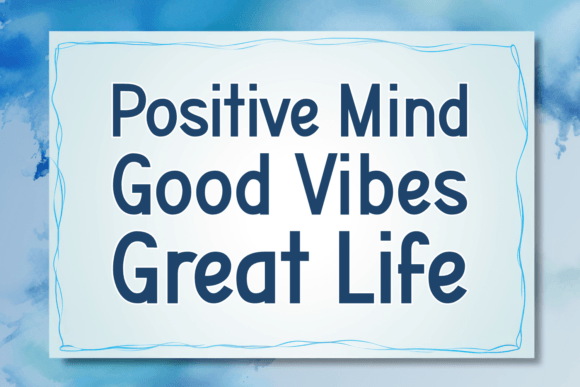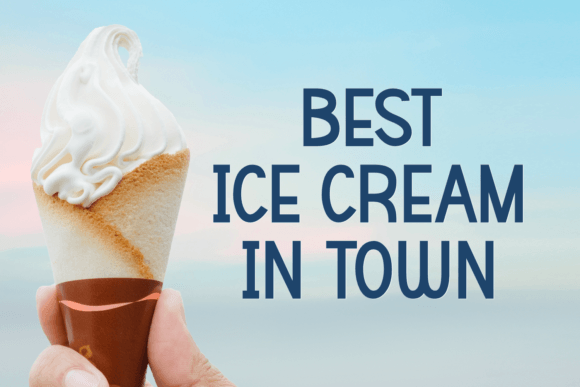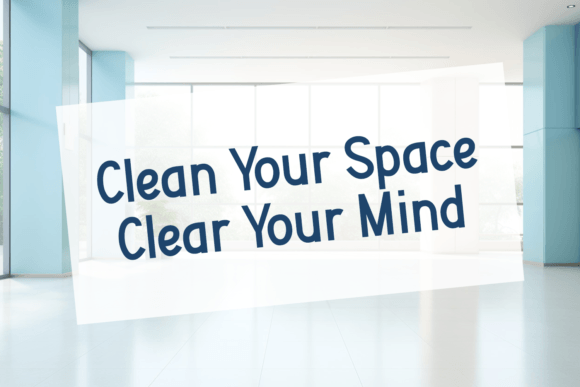
Introduction to Clear House Font
Clear House is a sans serif font that’s making waves in contemporary design circles.
The clean lines and modern structure of Clear House make it the perfect font choice for crafting trendy texts and impactful banners Here, uniqueness meets universal appeal, creating a one-of-a-kind font that’s perfect for labels, invitations, branding packages, and even custom stickers.
Key Features of Clear House Font
Why Choose Clear House Font?
Clear House Font offers exceptional quality and versatility, making it a valuable addition to your design toolkit. Whether you’re creating for personal projects or commercial use, Clear House Font delivers professional results.